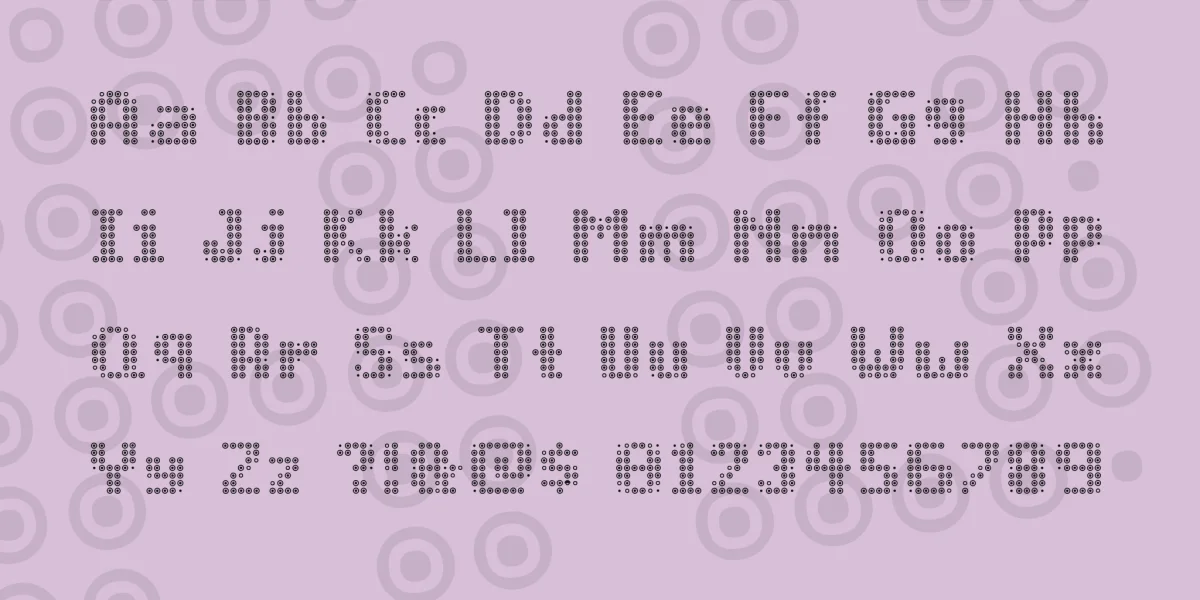
(All keyboard characters, some foreign/special) -- This is complicated version of PROG.BOT above. It comes "first" because it is more powerful; it is PROG.BOT before Remove-Overlap.